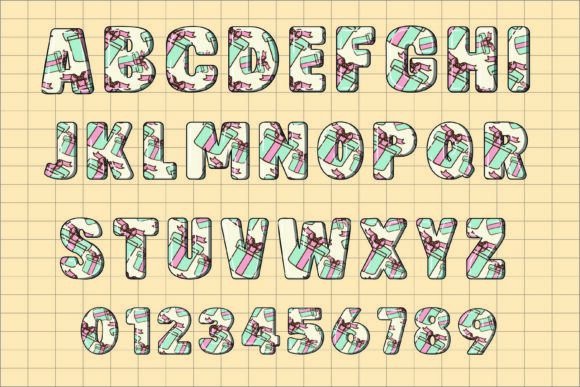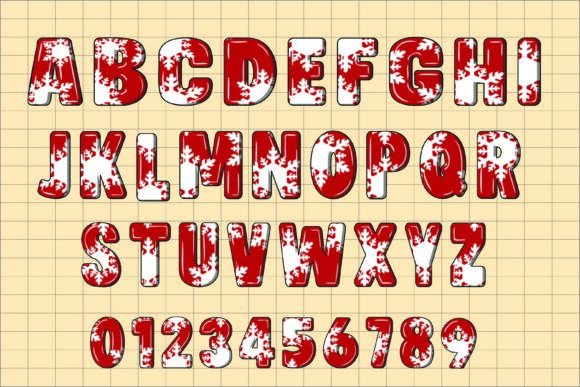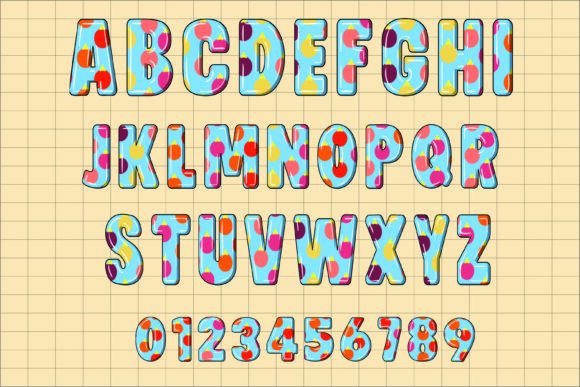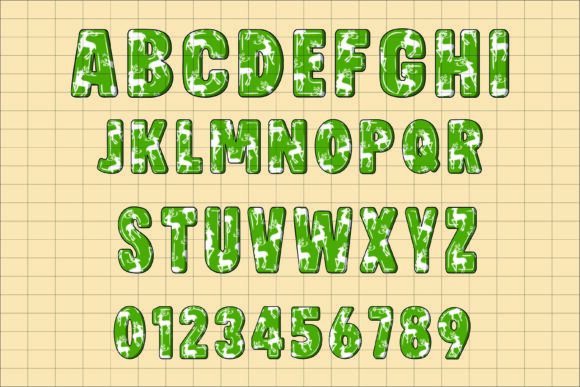
Introduction to Merry Type-Mas 3d Font Font
As the holiday season approaches, designers are always on the lookout for unique and eye-catching design resources to make their creative projects stand out. For many, the perfect font can be the key to capturing the festive spirit and making their work shine. This is where Merry Type-Mas 3D comes in – a revolutionary SVG Color Font that turns every letter into a 3D holiday gift, bringing instant festive cheer to any design.
Merry Type-Mas 3D is more than just a typeface; it’s a high-quality digital graphic that’s ready to use and perfect for commercial projects. With its embedded, multi-layered color and texture patterns, this font is a game-changer for designers looking to add a touch of holiday magic to their work.
Key Features of Merry Type-Mas 3d Font Font
- Unique 3D design with transparent background, perfect for creative projects that require a high-quality and eye-catching font.
- Perfect for use in creative projects, including holiday-themed designs, advertising materials, and digital artwork.
Honest Review: Merry Type-Mas 3d Font Font
I recently came across the Merry Type-Mas 3d Font Font, and I was excited to see if it would be a valuable addition to my design resources. After taking a closer look, I have to say that it’s a high-quality font that’s perfect for creative projects.
- ✨ High-quality 3D design that adds a unique touch to any project
- ✨ Transparent background makes it easy to integrate into various designs
- ⚠️ Limited customization options, which may not be ideal for designers who want more control
- ⚠️ May not be suitable for designs that require a more subtle or understated look
Overall, I think the Merry Type-Mas 3d Font Font is a great design resource that can add a fun and creative touch to various projects. While it may have some limitations, its high-quality design and free download make it a great option for designers who want to add some extra flair to their work.
Merry Type-Mas 3d Font Font
To get the most out of the Merry Type-Mas 3d Font Font, try experimenting with different font sizes, colors, and backgrounds. This will help you create a unique and visually appealing design element.
This font is perfect for a variety of creative projects, including:
- Christmas and holiday-themed designs
- Wedding invitations and decorations
- Advertising and marketing materials